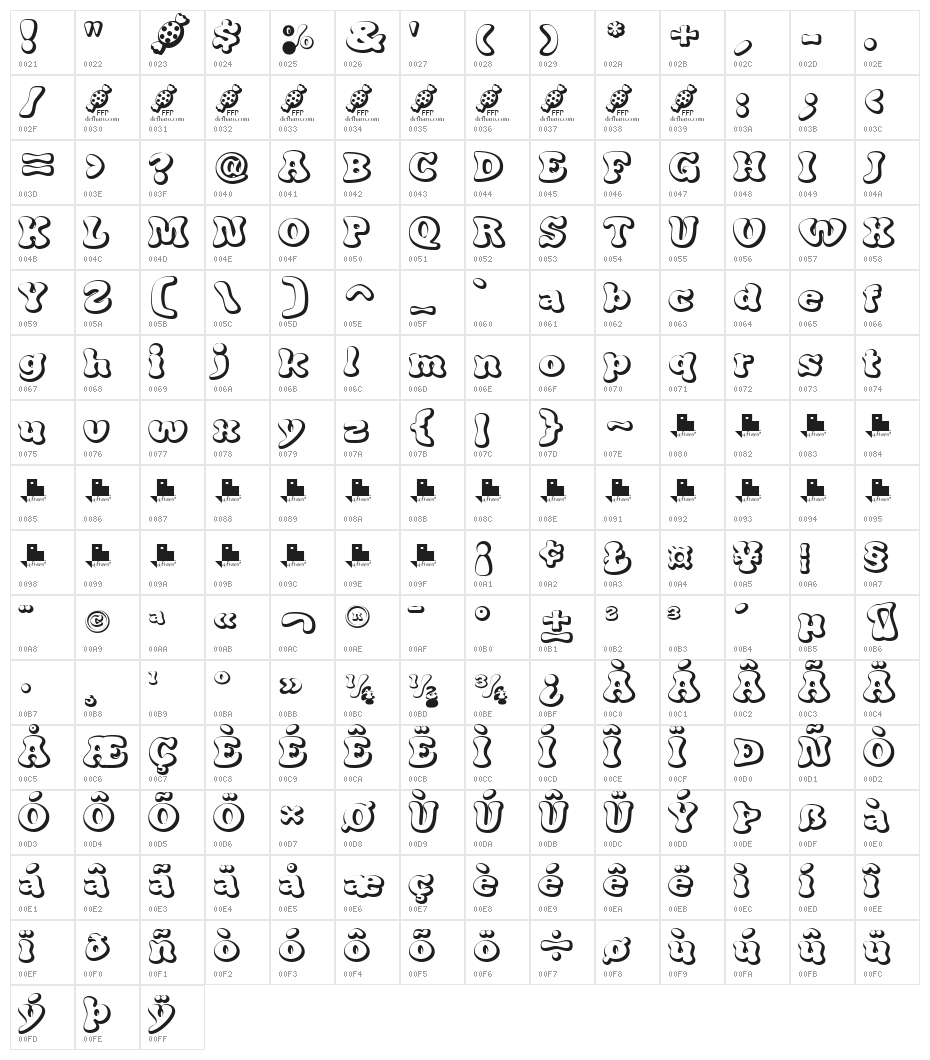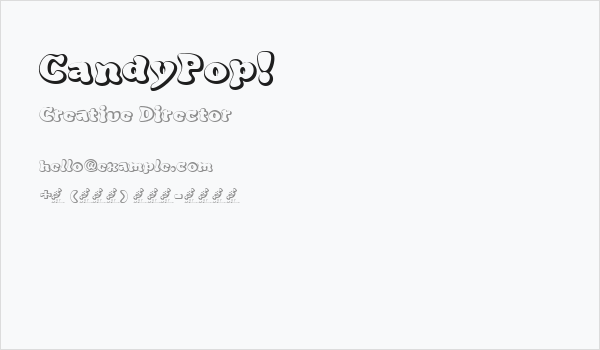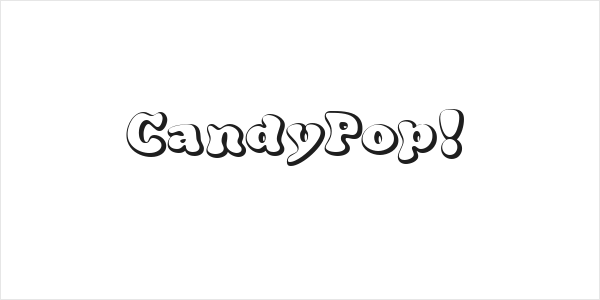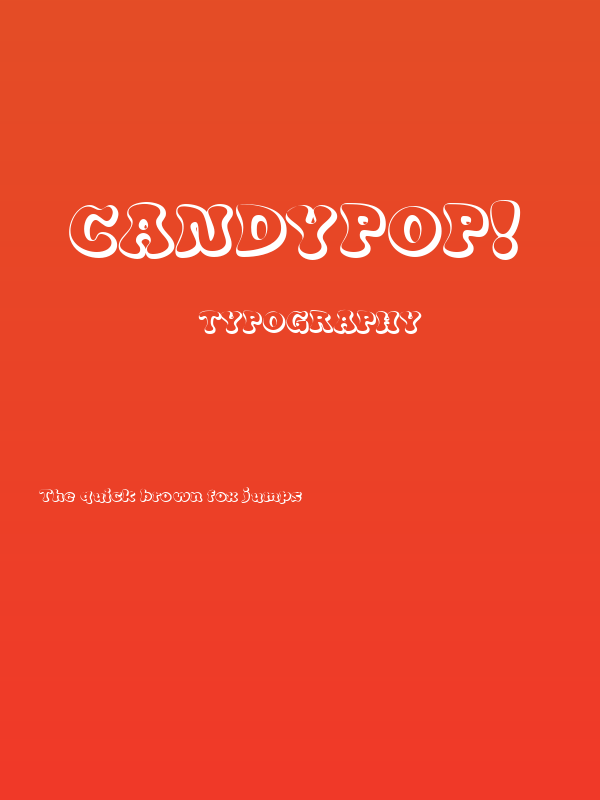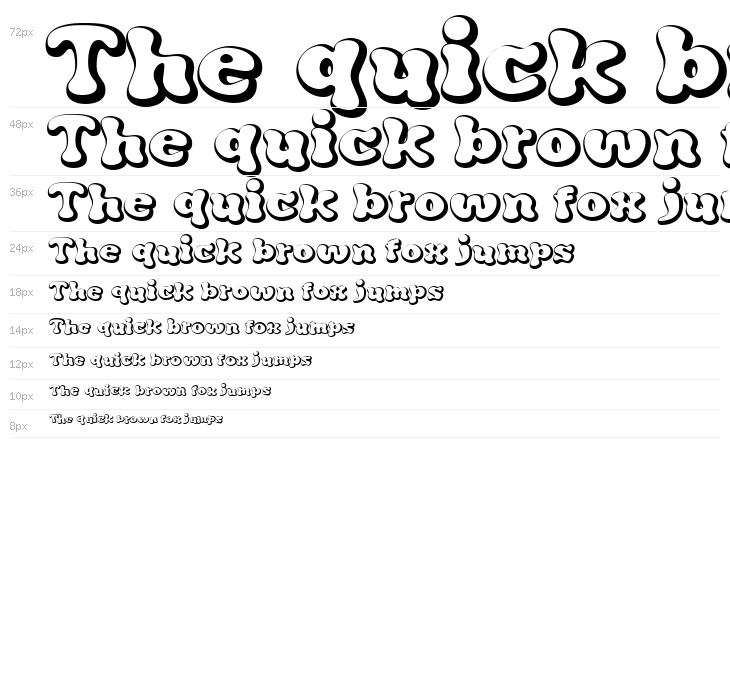
CandyPop! Font
✎ Cartoon
| 分类 | Cartoon |
| 整体风格 | Playful, Whimsical |
| 推荐项目 | Ideal for children's book covers, party invitations, candy shop branding, or any project requiring a fun and lively typeface. |